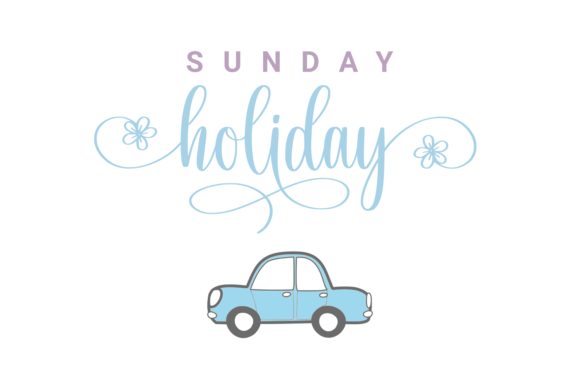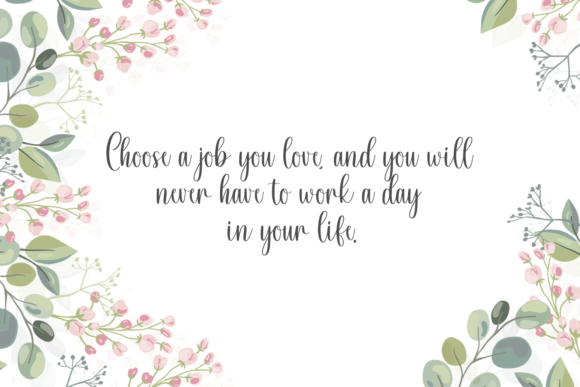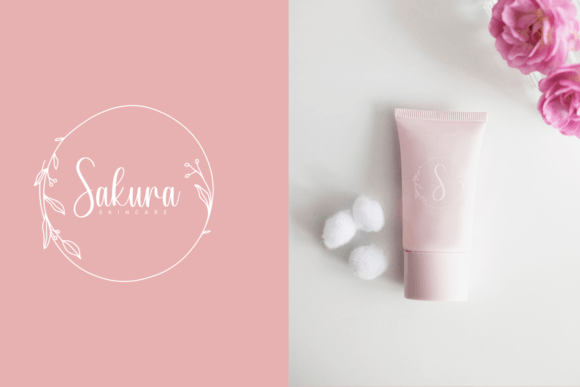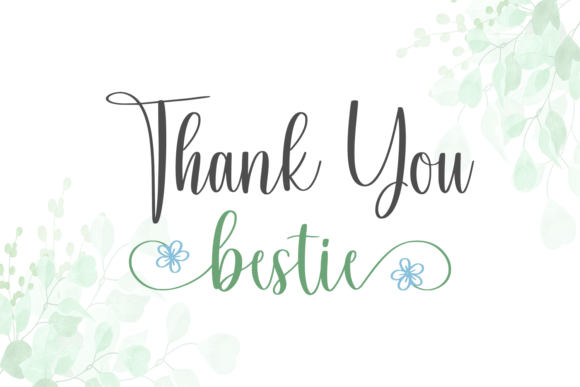
The Sweet Spot: How Daygarden Font Can Elevate Your Designs
I’ll never forget the time I was working on a branding project for a new boutique client. I had nailed down the color palette, logo concept, and overall aesthetic, but something was missing. As I scrolled through font after font, nothing seemed quite right. That’s when I stumbled upon Daygarden, a sweet and delicate handwritten font that instantly captured the essence of my client’s vision. If you’re a designer, crafter, or creative hobbyist looking to add a touch of whimsy to your work, you’re in the right place!
So, what makes Daygarden so special? Here are a few things that have won me over:
- ✨ Delicate, handwritten charm that’s perfect for branding, invitations, and more
- ✅ Highly legible, even at smaller sizes
- ✅ Extensive OpenType features, including glyphs and stylistic alternates
- ✅ Works beautifully with both digital and print designs
Of course, no font is perfect, and Daygarden does have a few minor quirks:
- ⚠️ Some users may find the font a tad too delicate for very bold or dramatic designs
- 🤔 Limited availability of certain special characters (but who uses those fancy characters, anyway?)
Exploring OpenType Features: Glyphs, Stylistic Alternates, and More
One of the standout features of Daygarden is its extensive OpenType features. With a range of glyphs, stylistic alternates, and more, you can customize your text to fit your design vision. For example, you can use:
- Swashes and flourishes to add a touch of elegance to your text
- Stylistic alternates to create a more playful or whimsical feel
- Glyphs to add special characters or icons to your text
The Story Behind Daygarden: A Designer Inspiration
According to its creators, Daygarden was inspired by the delicate, hand-painted signs found in vintage gardens. The font’s designers wanted to capture the whimsy and charm of these signs, and bring them to life in a digital format. The result is a font that’s both elegant and approachable – perfect for a wide range of design projects.
Q: Is Daygarden suitable for body text?
A: While Daygarden is highly legible, it’s best suited for headlines, titles, and short blocks of text. For longer body text, you may want to choose a more traditional font.